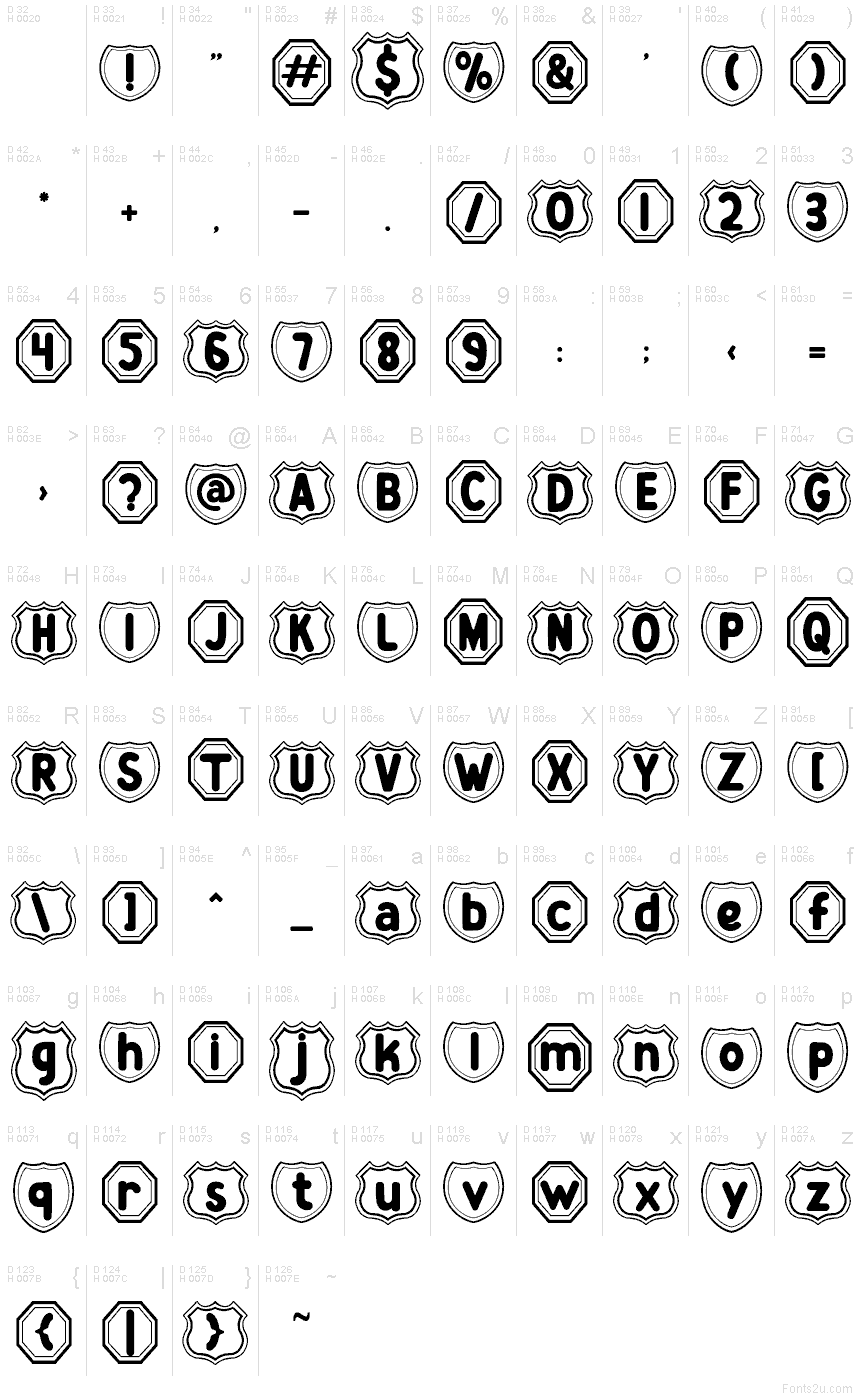
Zany Route Badge
Zany Route Badge font by PutraCetol Studio is a free display font with a quirky style. This typeface combines outlined engraved letters with shield-like background elements for each typographic character. Create outstanding text with the right typography, provided instantly by this one.
Whimsical moods don’t require much work! Get them in logo design, branding, packaging design, product label designs, and advertisement. Use this retro-influenced resource also in social media posts, invitation cards, or posters.